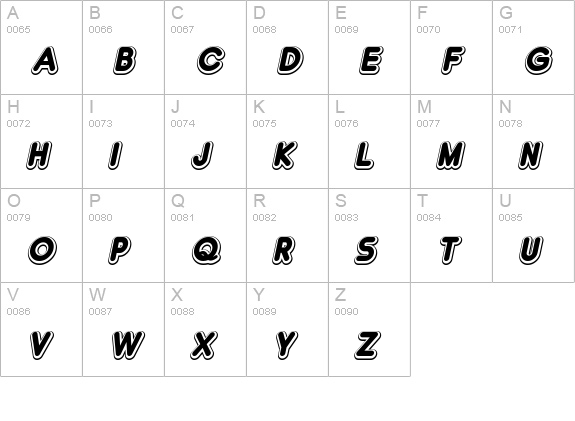
Double¥Bubble Shadow Italic is a distinctive, italic variant in the Double¥Bubble typeface family \xE2\x80\x94 well suited to design and typography projects.
Double¥Bubble Shadow Italic is a unique and eye-catching font that effortlessly combines an elegant italic style with a playful and bubbly shadow effect. This font is perfect for adding a touch of whimsy and creativity to any design project. The distinctive shadow effect adds depth and dimension to each letter, making them appear as if they are floating off the page. This font is sure to grab attention and make a lasting impression. Double¥Bubble Shadow Italic is not only aesthetically pleasing, but it is also incredibly versatile. It can be used for a wide range of design purposes, including logos, headlines, posters, invitations, and more. Its flexibility allows it to adapt to any project and style effortlessly. One of the best things about Double¥Bubble Shadow Italic is that it is available for free. Yes, that's right! You can freely download this font at FontsMarket.com. This means that you can enhance your design projects without having to spend a dime. Whether you are a professional designer or just someone who enjoys creating visually appealing content, Double¥Bubble Shadow Italic is a must-have font in your collection. Its unique combination of elegance and playfulness will make your designs stand out from the crowd. So why wait? Go ahead and download Double¥Bubble Shadow Italic today at FontsMarket.com and let your creativity soar. With this font, you are sure to create stunning and captivating designs that will leave a lasting impression.